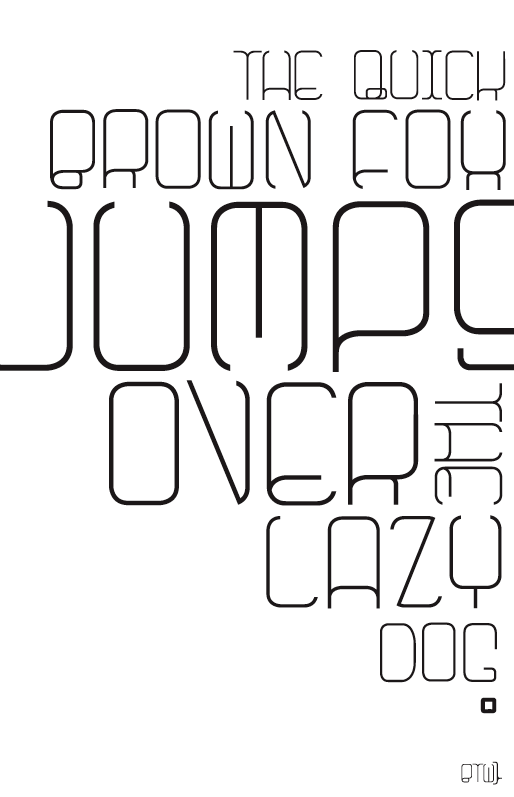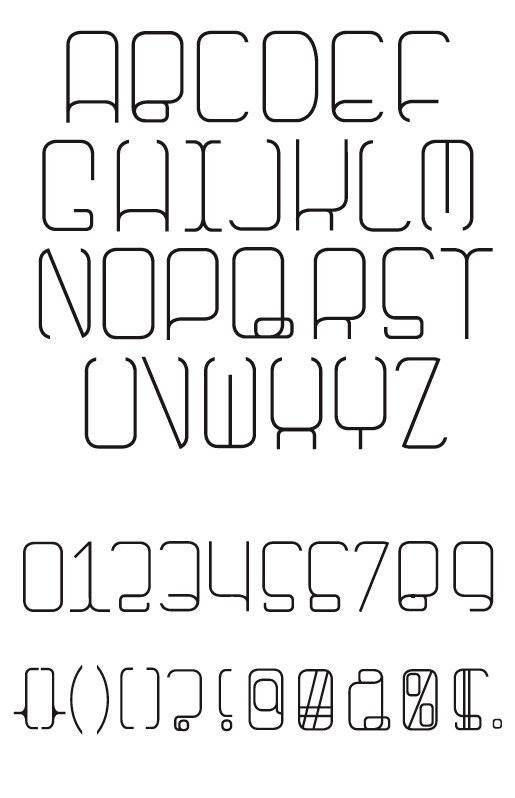
This typeface was designed with respect to the content of the game I created [see game design for reference]. The course content focused on leadership strategies and theories which inspired to strict and rigid geometric form, and the actual application of the leadership skills inspired the more fluid qualities of the letter that break away from the system.